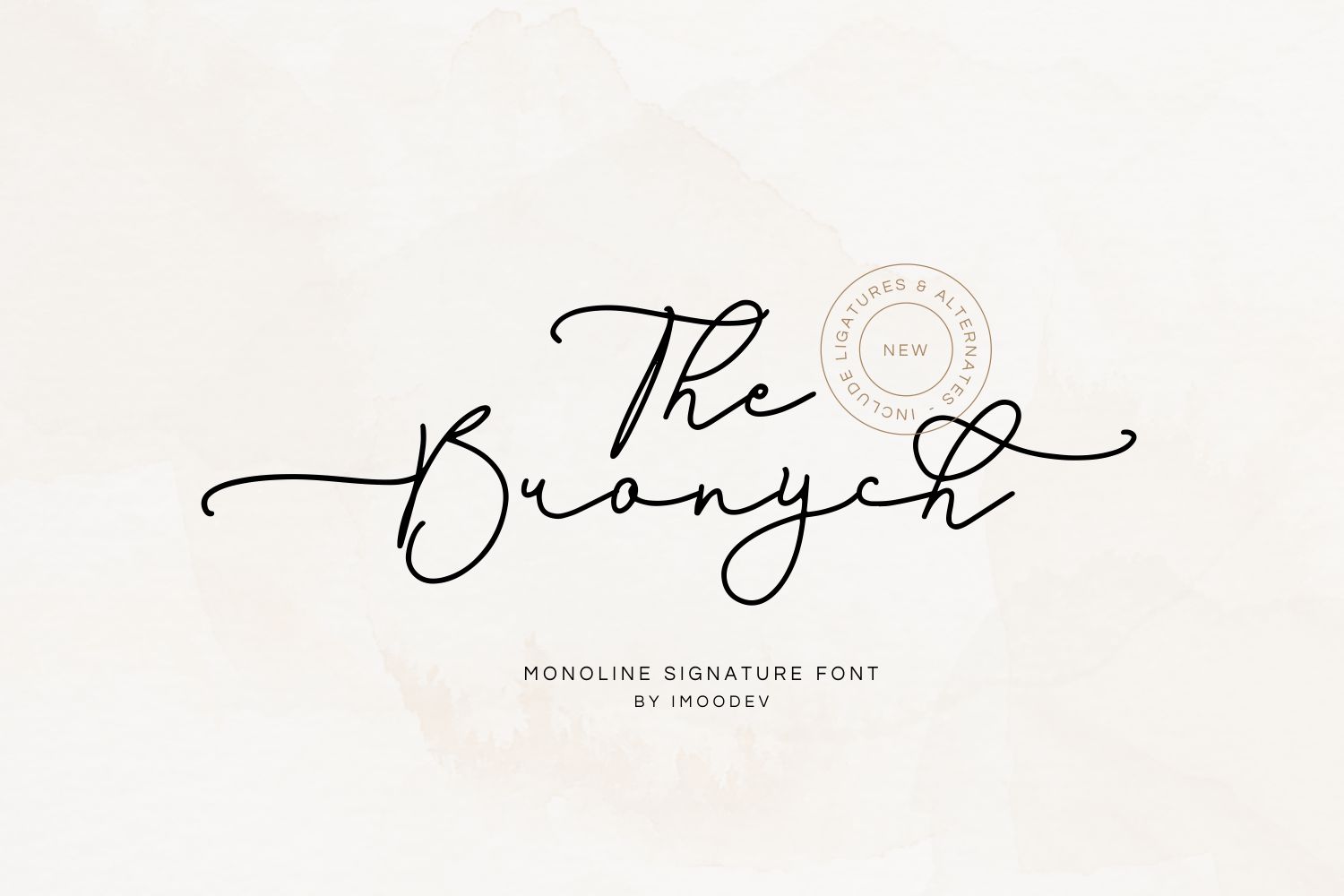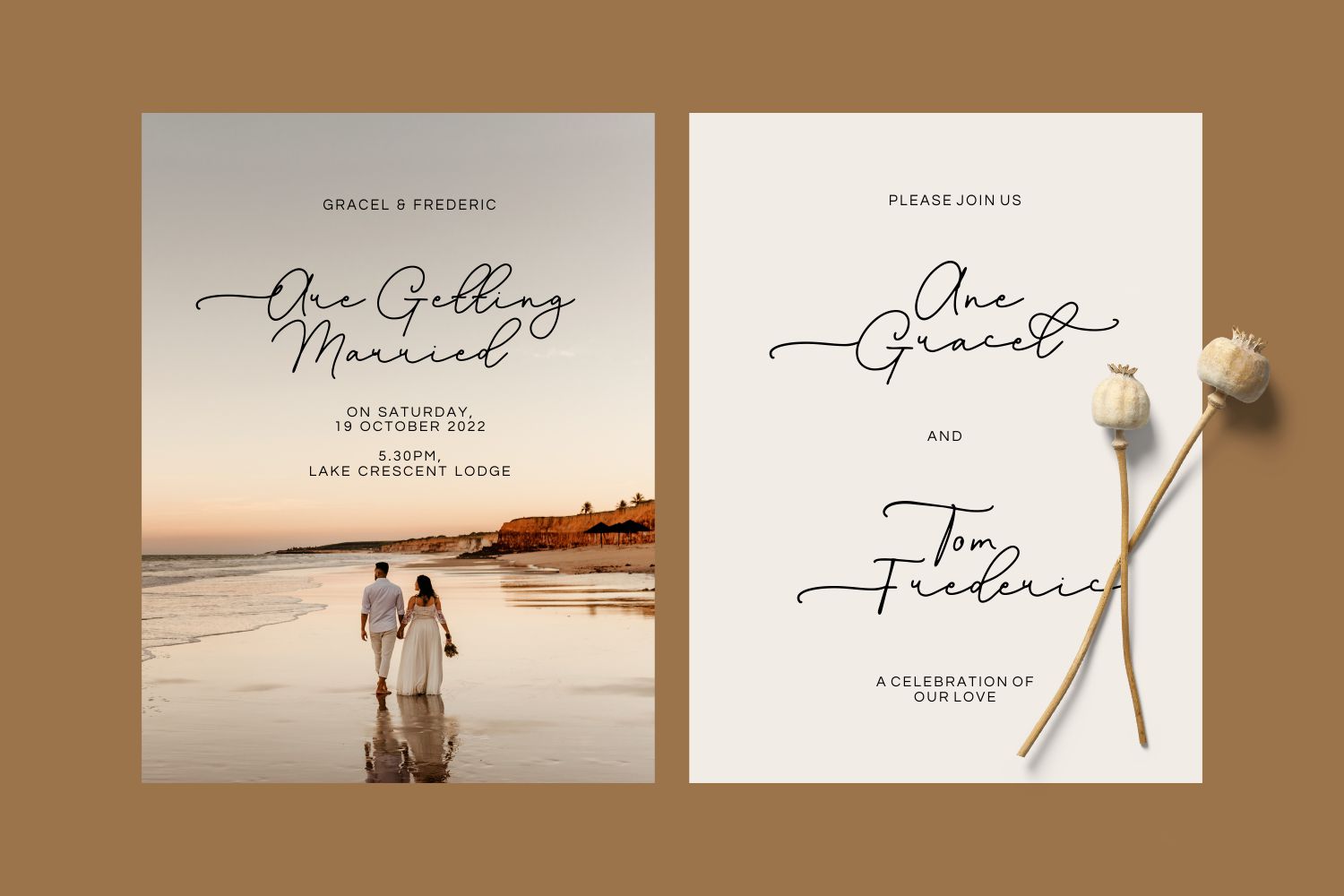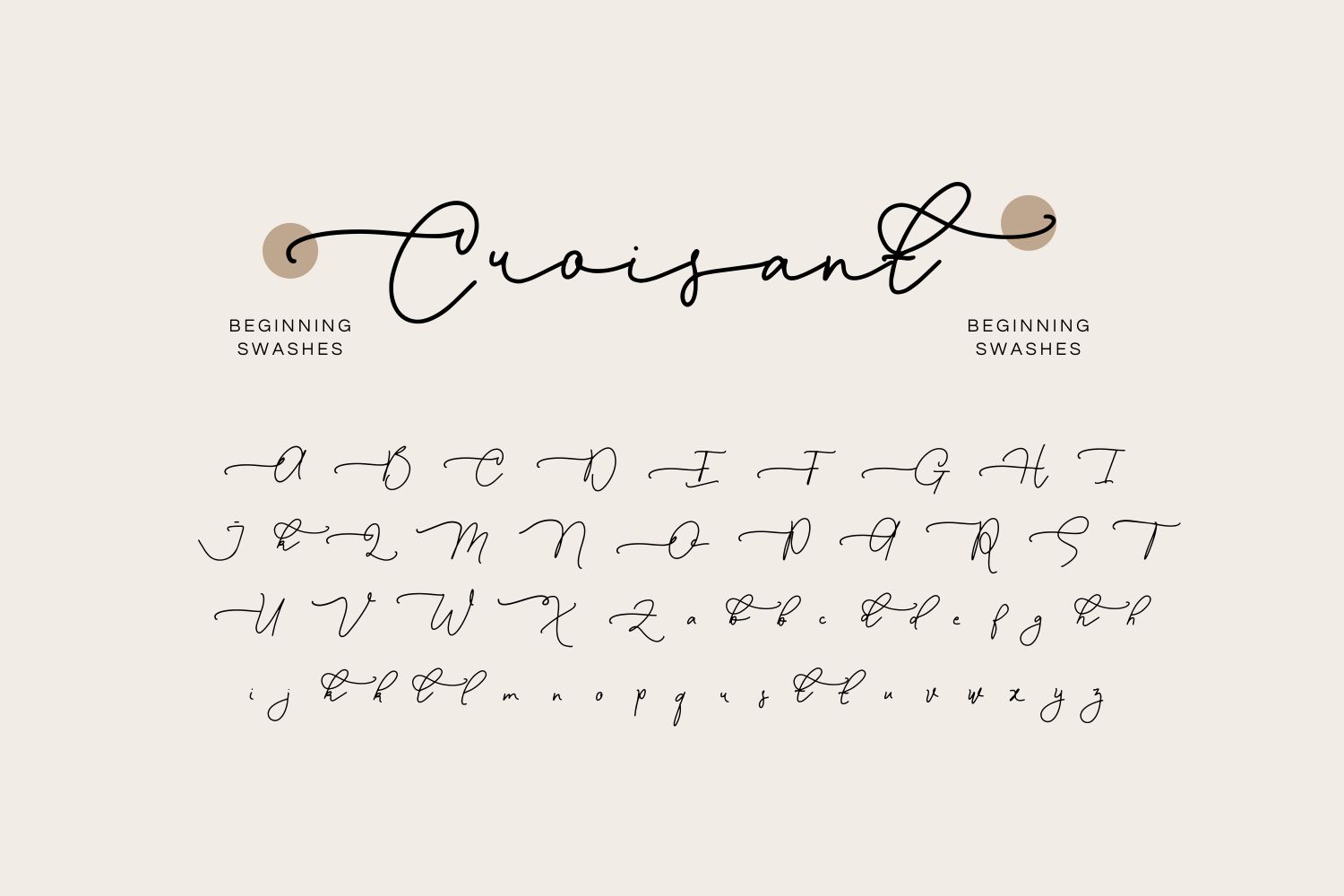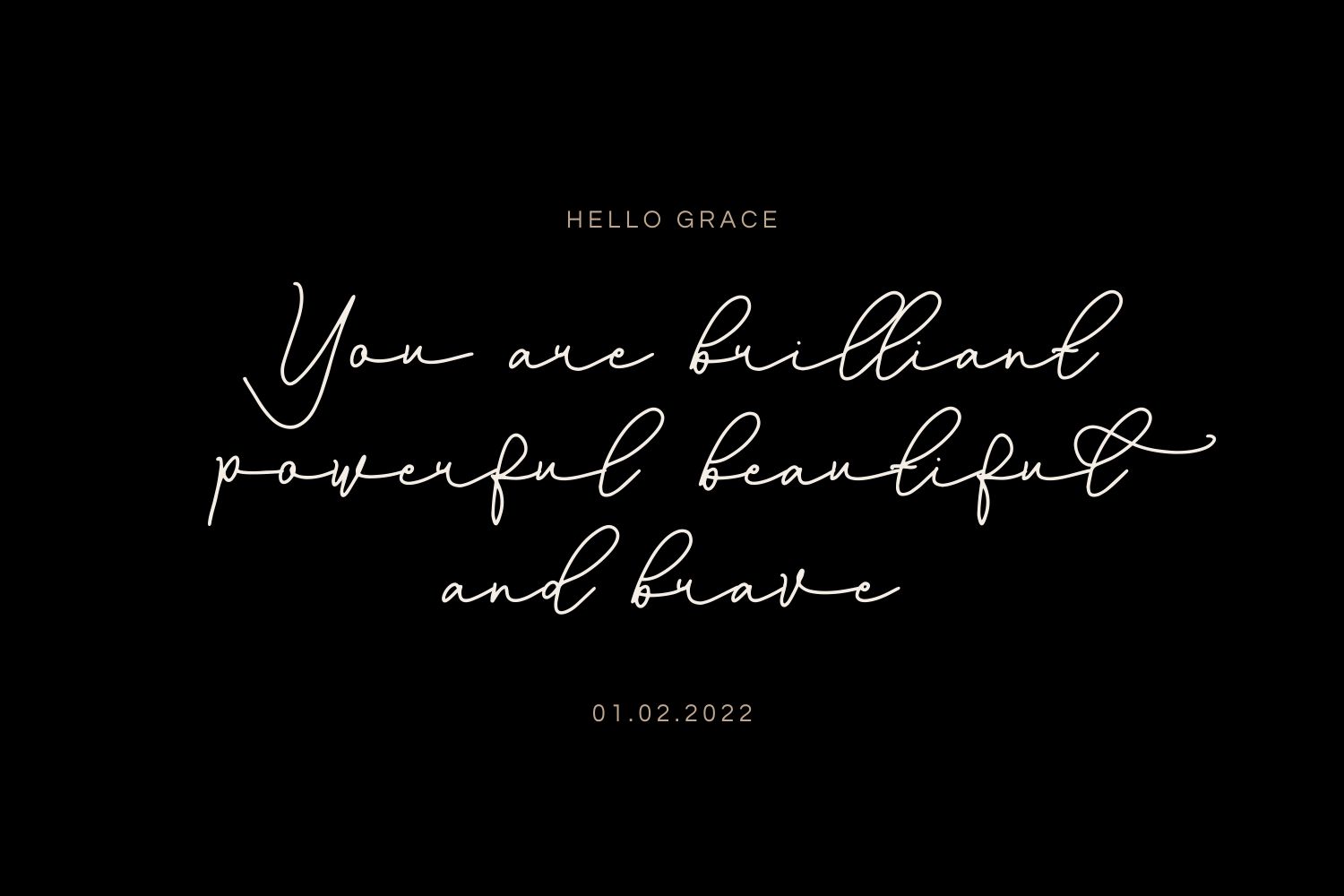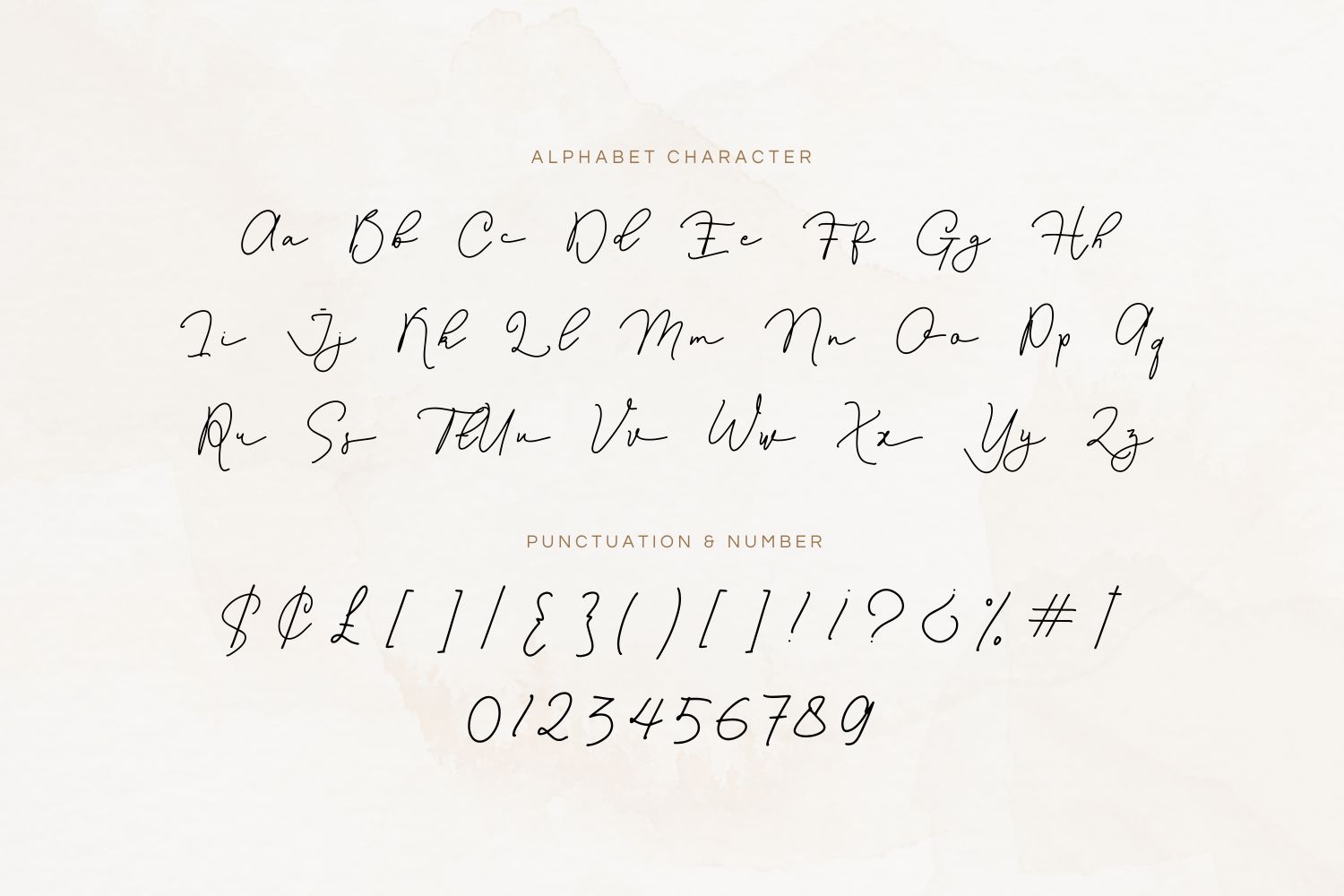
The Bronych is an elegant monoline signature font designed with a smooth and flowing handwritten style. Its delicate strokes and graceful curves create a refined look, making it perfect for projects that require a touch of sophistication and personality. This font is ideal for wedding invitations, branding, logos, product packaging, and social media graphics, where a stylish and authentic handwritten feel can elevate the design. With ligatures and alternate characters included, The Bronych provides flexibility to create unique and natural-looking typography.
Its timeless charm makes it versatile for both modern and classic themes, while the thin monoline consistency ensures readability and elegance. The Bronych brings a luxurious and personal touch to every project, whether you are crafting a romantic invitation, a chic fashion label, or a heartfelt greeting card. It captures the essence of handwritten beauty while maintaining balance and professionalism in every stroke.